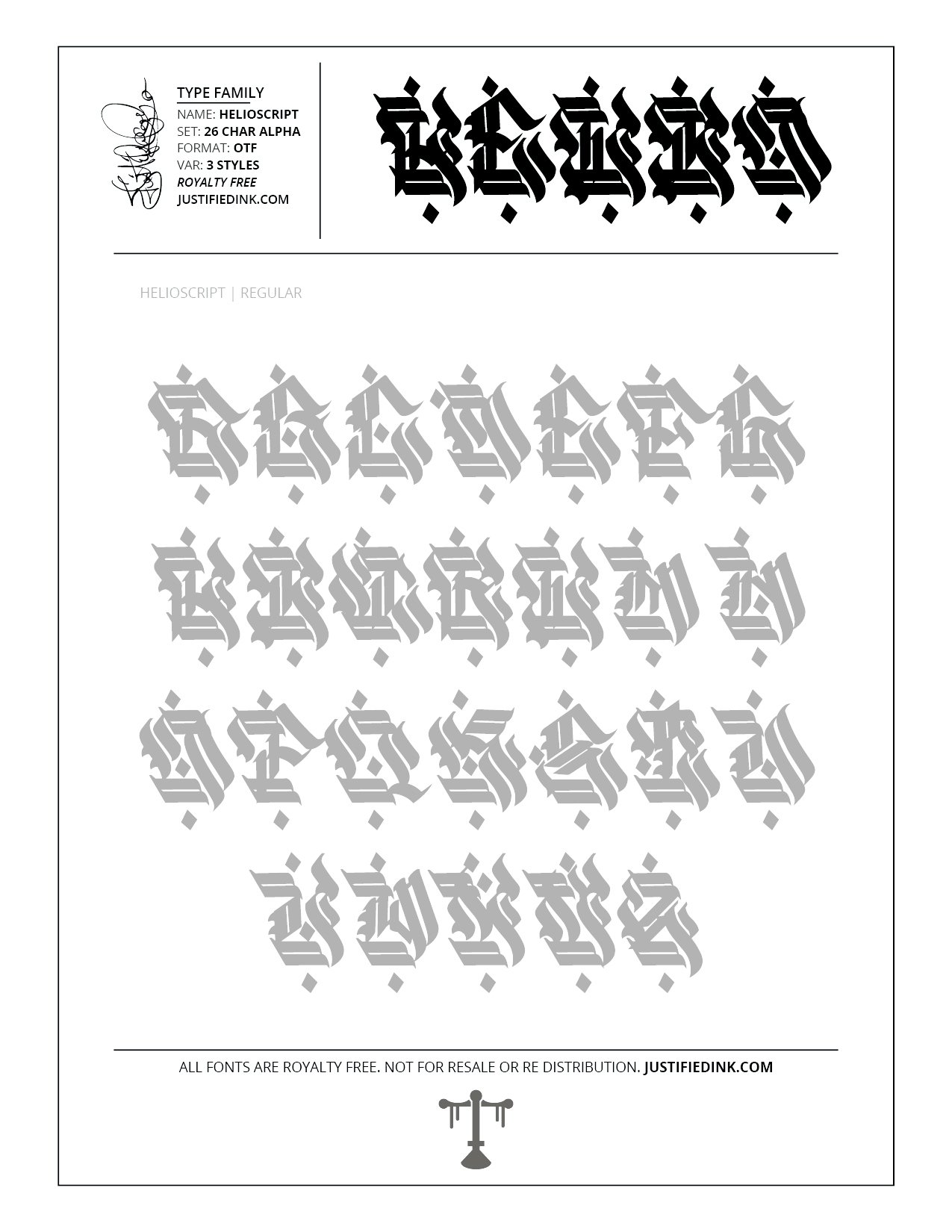
Helioscript (3 styles) - Custom Font by Justified Ink
NAME: Helioscript
Helioscript is a titan-sized font that will set anything ablaze. Has a forward moving slant and 2 variations with shines both rough and clean.
This font is part of the collection by Justified Ink, called Blackletter II. After 15+ years creating, I began to focus on building personal libraries of my work. The Blackletter II Collection was created through writing page after page, and countless hours over a 2 year span of daily practice. Each font from this collection has been hand drawn, manually vectored, and custom set as a type-able font. It comes in a full set of 26 char alpha. Each font family has variations in styles and/or non-alpha chars.